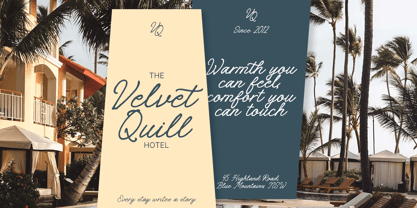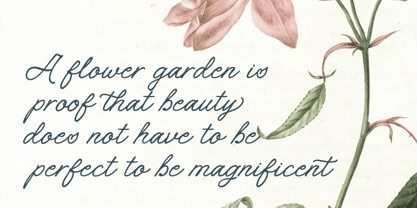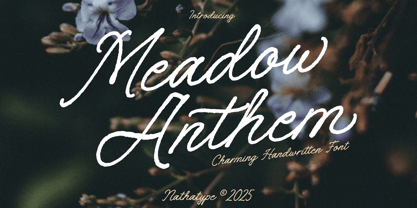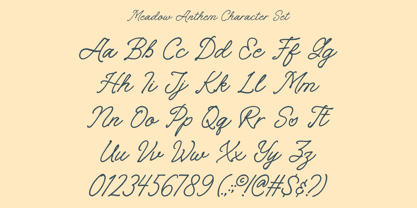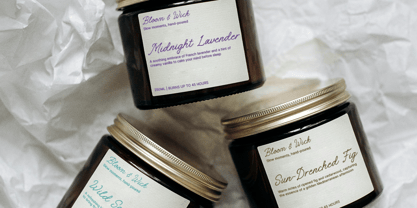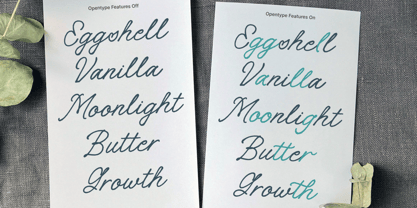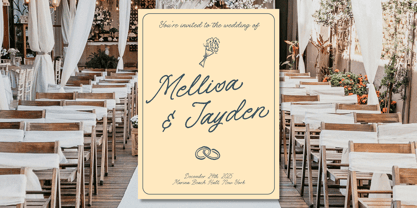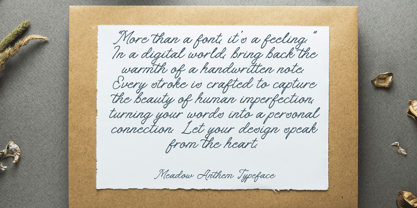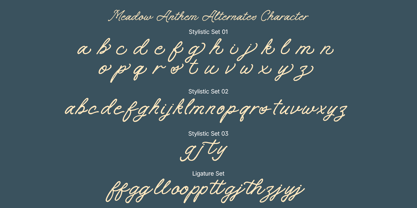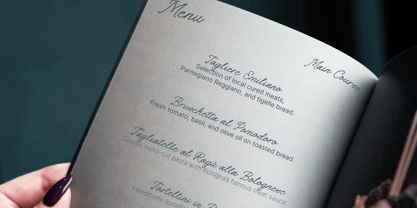
Meadow Anthem
by Nathatype
The Meadow Anthem Font Family was designed by Donis Miftahudin and published by Nathatype. Meadow Anthem contains 1 styles. More about this family
Meadow Anthem is a beautifully crafted script font that captures the graceful movement of natural handwriting. Designed with smoothly connected letters, visible stroke contrast, and subtle ink stroke accents, this font delivers an elegant and expressive style that feels both artistic and refined. Its flowing structure creates a rhythmic typography that is perfect for designs that need sophistication with a handcrafted touch. In addition, enjoy the features here. Features: Ligatures Stylistic Sets Multilingual Supports PUA Encoded Numerals and Punctuations Meadow Anthem fits in logos, invitations, quotes, branding, posters, and many more designs. Find out more ways to use this font by taking a look at the font preview. Thanks for purchasing our fonts. Hopefully, you have a great time using our font. Feel free to contact us anytime for further information or when you have trouble with the font. Thanks a lot and happy designing.
Designers: Donis Miftahudin
Foundry: Nathatype